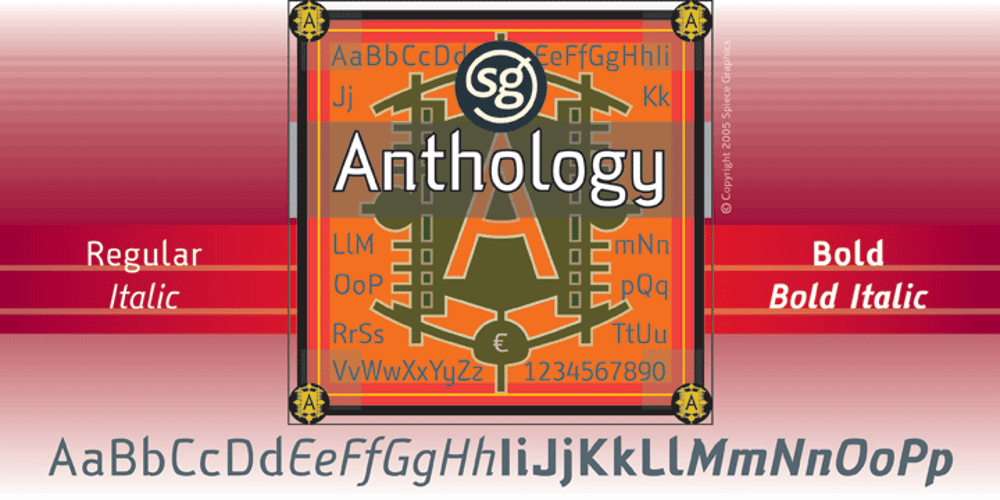
Anthology SG Font Family was designed by Jim Spiece and published by Spiece Graphics. Anthology SG contains 4 styles and family package options. Anthology is a contemporary design with a faintly mystical flavor. A curious collection of miscellaneous parts including blade-like curved crossbars, angle-cut serifs, and egg-shaped glyphs make for an intriguing futuristic blend. Great for games, science-fiction, or high-technology projects. Anthology is now available in the OpenType Std format. Some additional characters have been added to this OpenType version as stylistic alternates. This advanced feature works in current versions of Adobe Creative Suite InDesign, Creative Suite Illustrator, and Quark XPress. Check for OpenType advanced feature support in other applications as it gradually becomes available with upgrades.